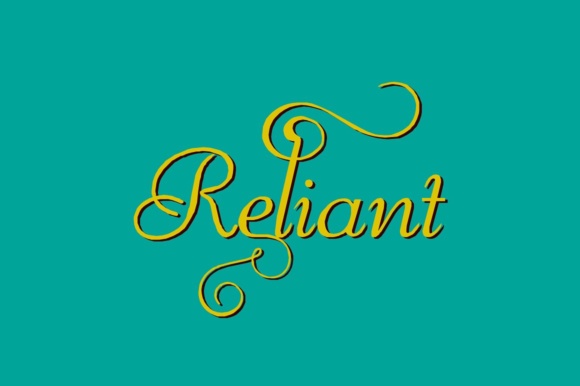
Reliant Font
About Reliant Font
The Reliant is a free interpretation of the classic design from “BernhardSchoenschrift”, originally designed by Lucien Bernhard and “Liberty”, designed by W.T. Sniffin for ATF in 1927, following the original designs from Lucien Bernhard.